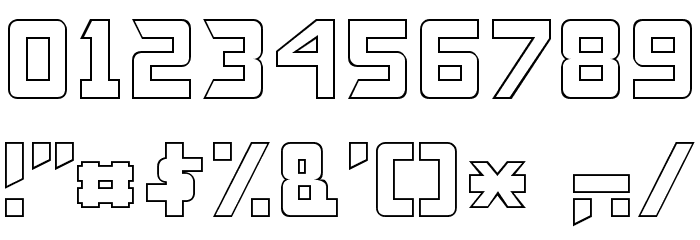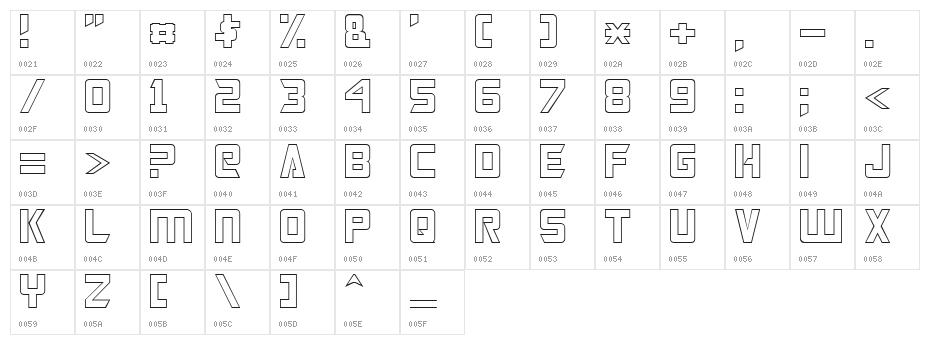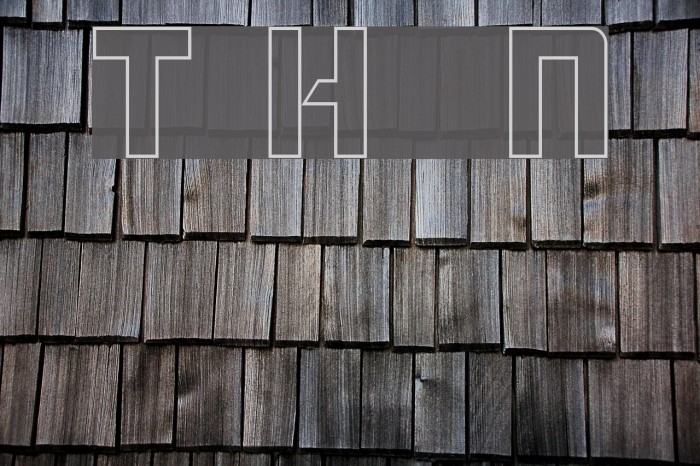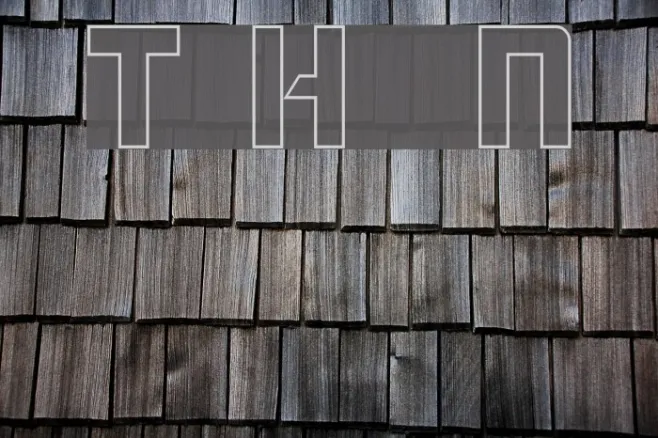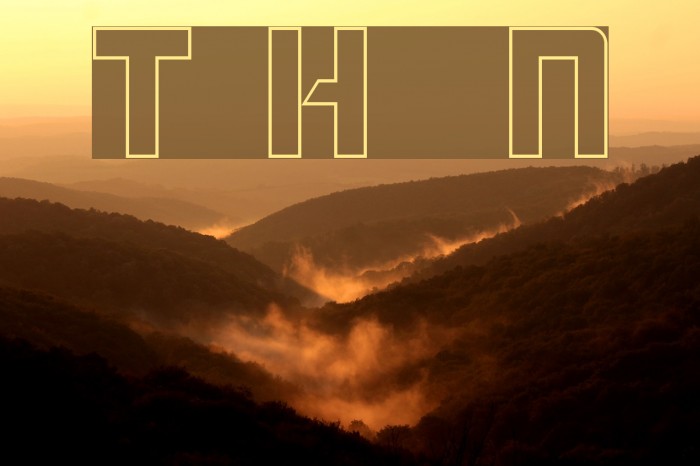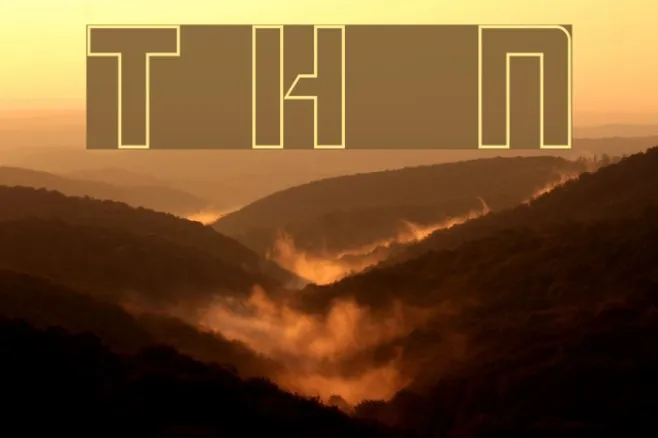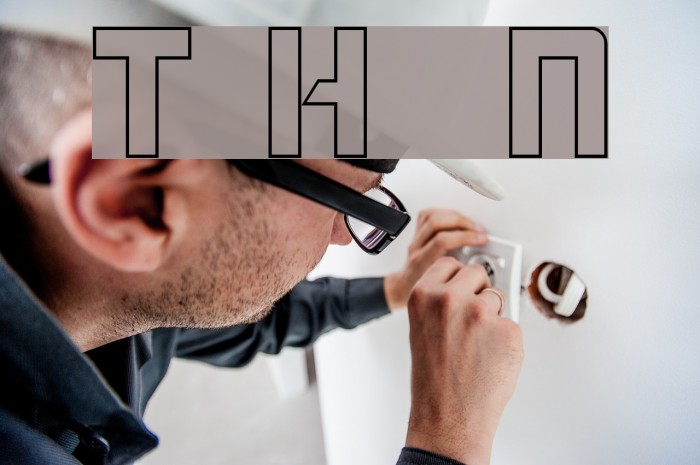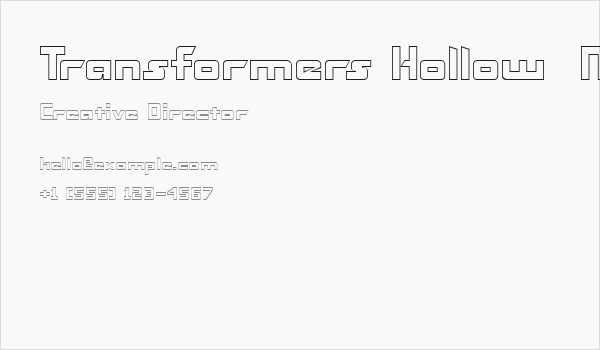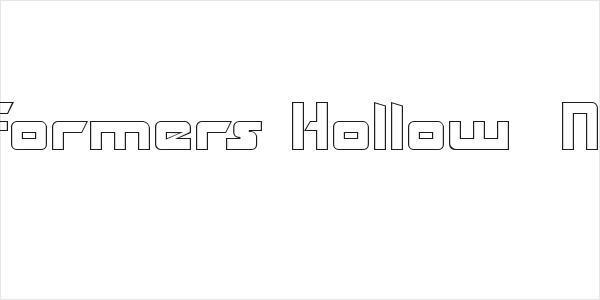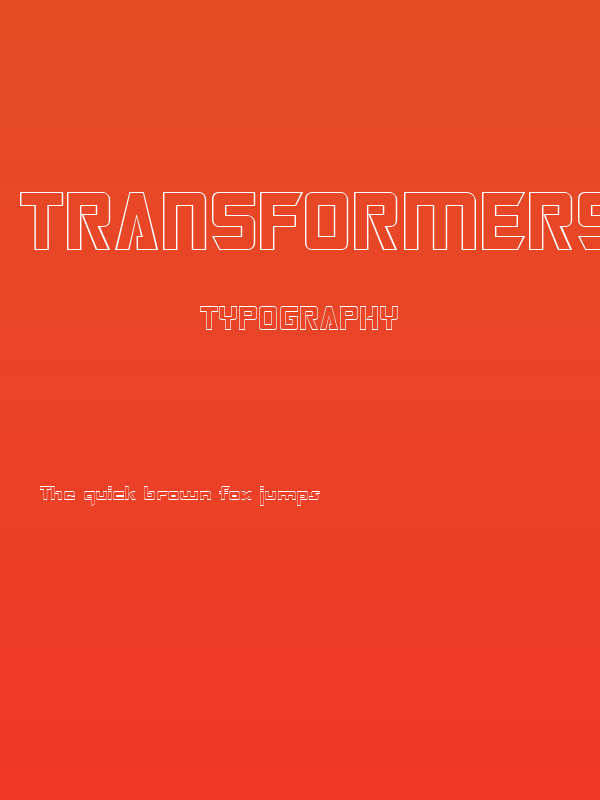
Transformers Hollow Normal Font
Transformers Hollow Normal Description
This font features a bold, geometric design with a hollow interior, creating a striking and futuristic appearance. The uppercase letters are angular and sharp, reminiscent of a mechanical or robotic aesthetic. Lowercase letters maintain the same geometric style, ensuring consistency across the typeface. Numbers and special characters are designed with the same hollow, angular style, making them highly distinctive. The overall look is modern and tech-inspired, suitable for projects that require a bold and eye-catching typeface.
| Overall Style | Futuristic, Tech-inspired |
| Proposed Projects | Ideal for sci-fi movie posters, tech branding, video game titles, and futuristic-themed designs. |